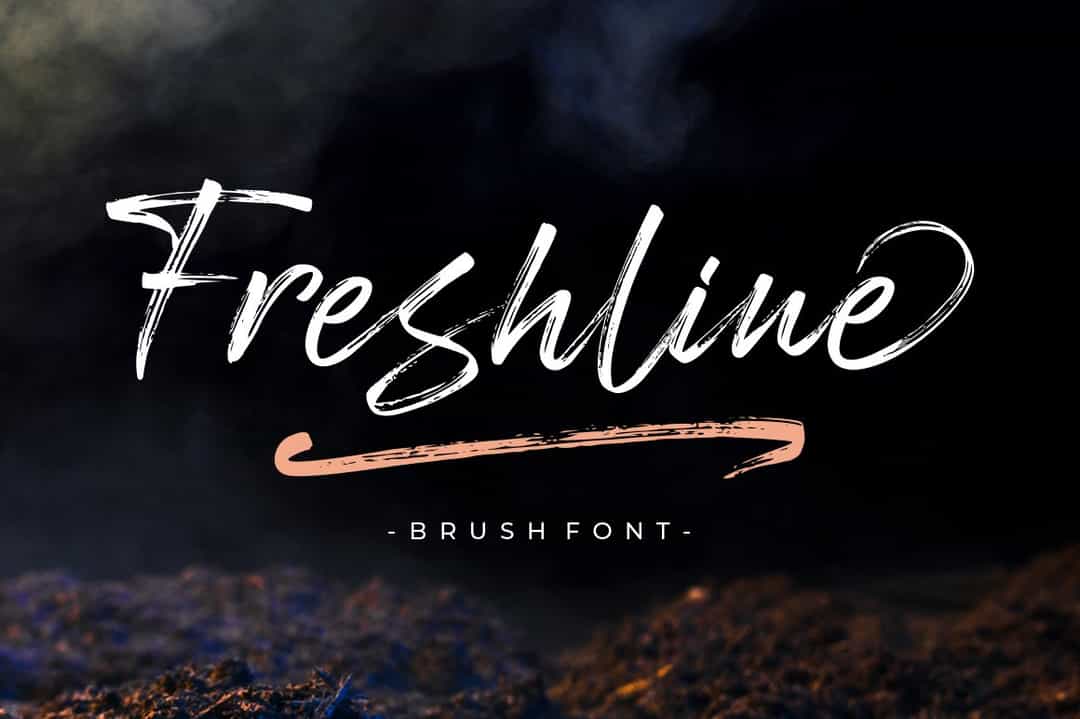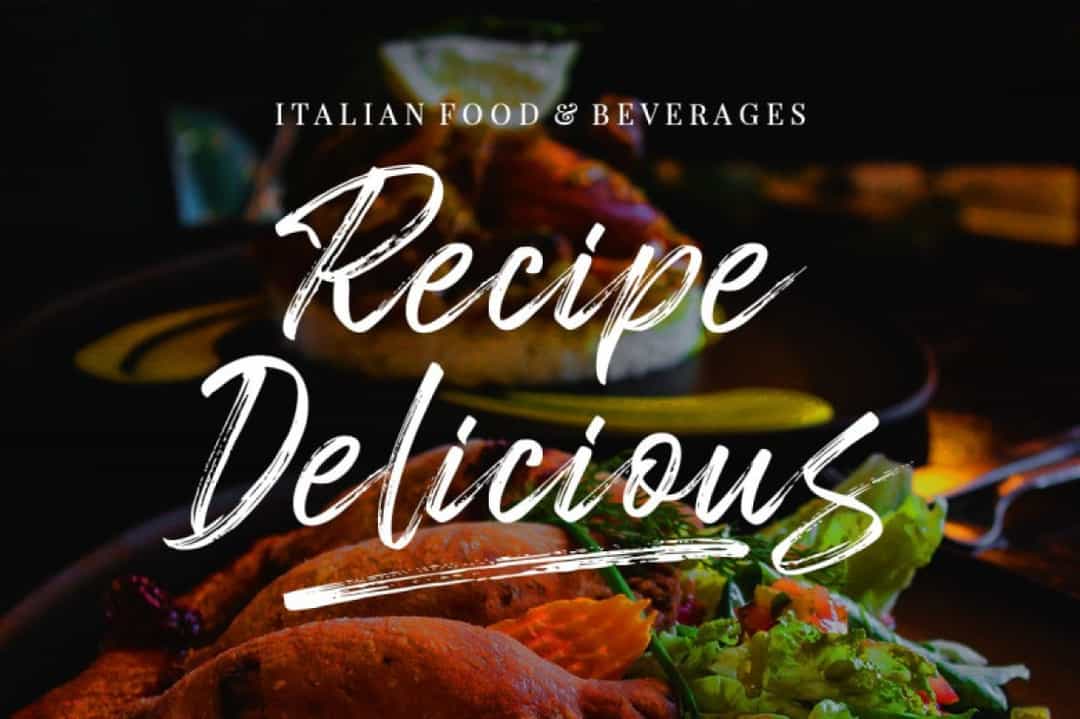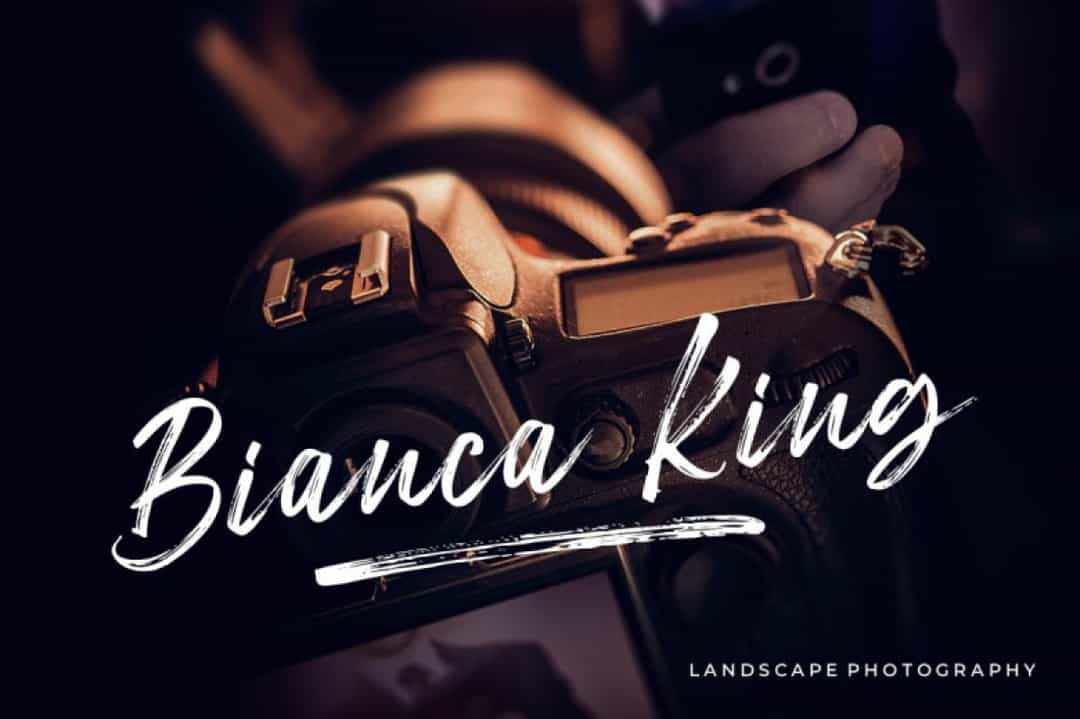
Discover Freshline Font, part of the Brush collection—a versatile and unique font perfect for adding a personal touch to your projects. Download it for free and enjoy crafting designs with style, from invitations to social media posts. This font is available exclusively for personal use, giving you the freedom to create without limits. Unlock your creativity with Freshline Font today!
Freshline is a brush font that offers a take, on design crafted with an uneven baseline. It works well for design purposes like clothing event invites, book titles, stationery, quotes, branding, logos, cards, apparel design packaging, posters and more.